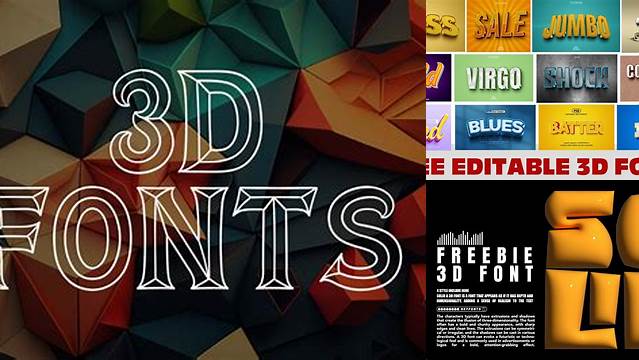
Hey guys! Want to make your designs pop? Let's dive into the awesome world of 3D fonts for Photoshop. Getting your hands on cool 3D fonts doesn't have to break the bank. There are tons of free options available that can add depth and style to your projects. So, buckle up, and let's explore how to find, download, and use these fonts to create stunning visuals!
What are 3D Fonts and Why Use Them?
3D fonts are fonts that have a three-dimensional appearance, adding depth and realism to text. Using 3D fonts can make your designs more eye-catching and engaging. Think about it – a simple flat font is fine, but a 3D font just grabs attention! They are perfect for posters, logos, and any design that needs a bit of extra flair. Plus, with Photoshop, you can customize these fonts even further to match your specific style.
Using 3D Fonts in Photoshop
Once installed, using 3D fonts in Photoshop is a breeze. Select the Text tool, choose your 3D font from the font list, and start typing. You can then use Photoshop’s various effects and styles to further enhance the 3D effect. Experiment with shadows, highlights, and textures to get the perfect look. Don’t be afraid to play around – that’s how you discover the coolest effects!
3D Font Styles
Modern 3D Fonts
Modern 3D fonts often feature clean lines and a minimalist aesthetic. These fonts are perfect for tech-related designs or projects that need a sleek, contemporary feel. When using modern 3D fonts, consider pairing them with simple backgrounds and a limited color palette to maintain the clean look.
To truly optimize the use of modern 3D fonts, it’s important to consider the overall composition of your design. A well-chosen modern 3D font can elevate your project, making it appear more professional and cutting-edge. Remember to adjust the lighting and shadows within Photoshop to enhance the three-dimensional effect and make the font stand out even more. Experiment with different angles and depths to achieve the desired impact.
Retro 3D Fonts
Retro 3D fonts bring a vintage vibe to your designs. Think about those old arcade games or classic movie posters. These fonts often have a bold, playful look and are great for projects that need a nostalgic touch. Use retro 3D fonts to evoke a sense of fun and nostalgia. These fonts are particularly effective when paired with bright colors and retro-inspired graphics. Imagine using a retro 3D font for a flyer promoting a vintage car show or a poster for a throwback party!
Futuristic 3D Fonts
Futuristic 3D fonts evoke a sense of innovation and high-tech design. Characterized by sharp angles, geometric shapes, and a metallic sheen, these fonts are ideal for projects related to science fiction, technology, or cutting-edge advancements. When working with futuristic 3D fonts, consider incorporating elements such as glowing effects, neon colors, and digital patterns to amplify the futuristic vibe. Use them for video game titles, tech company branding, or digital art that aims to push the boundaries of visual design. Futuristic 3D fonts are perfect for creating a strong, forward-thinking impression and capturing the essence of tomorrow's world.
Grunge 3D Fonts
Grunge 3D fonts add a raw, edgy feel to your designs. These fonts often feature distressed textures, rough edges, and a gritty appearance. Perfect for designs that need a rebellious or industrial vibe, grunge fonts can make a strong statement. Imagine using a grunge 3D font for a band poster or a skate park advertisement. Pair them with dark backgrounds and distressed imagery to enhance the grunge aesthetic. Grunge 3D fonts are fantastic for projects that aim to convey a sense of authenticity and nonconformity.
Cartoon 3D Fonts
Cartoon 3D fonts are playful and whimsical, making them perfect for children's books, animated content, and designs that need a lighthearted touch. These fonts often feature rounded shapes, bright colors, and a friendly appearance. Consider using cartoon 3D fonts for birthday invitations, educational materials, or any project that aims to create a sense of fun and joy. Experiment with different color combinations and add playful elements to complement the font's cheerful vibe. Cartoon 3D fonts are an excellent choice for projects that target a younger audience or aim to evoke a sense of nostalgia and playfulness.